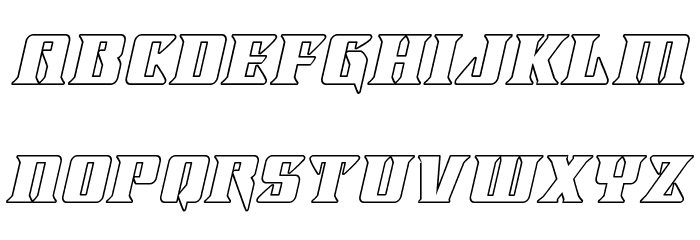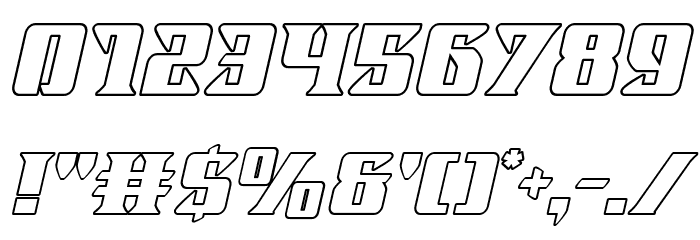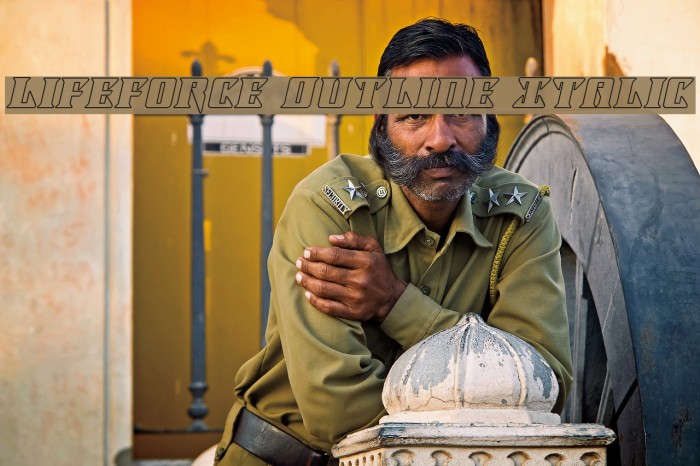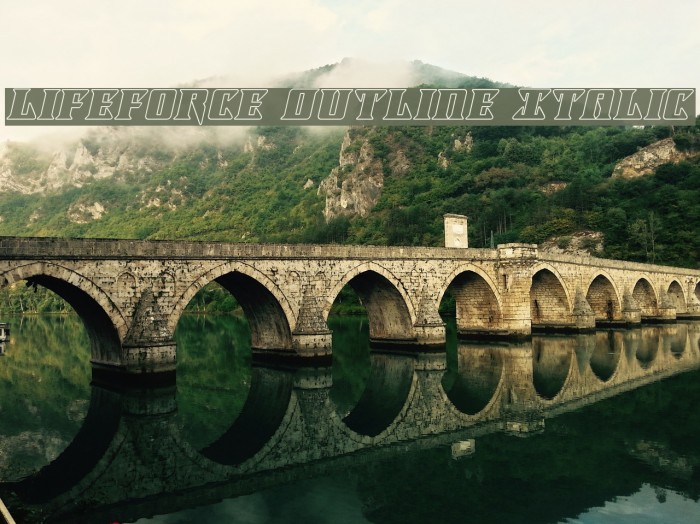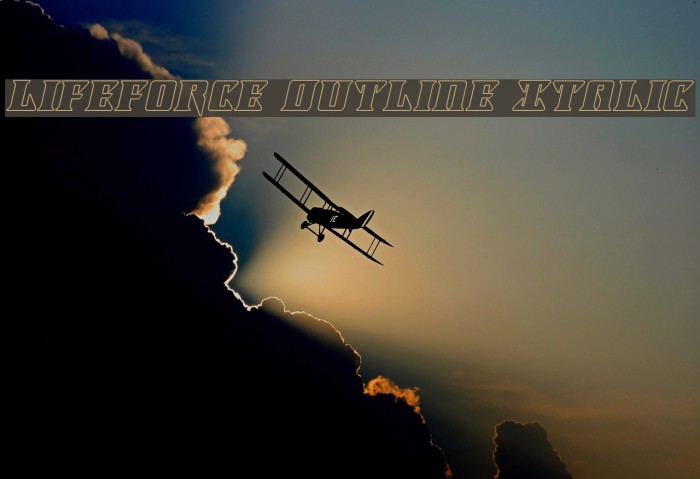
Lifeforce Outline Italic Font
This font features a bold, italicized outline style that gives it a dynamic and futuristic appearance. The characters are angular and geometric, with sharp edges and a consistent slant that adds a sense of motion and energy. The outline design creates a hollow effect, making it ideal for overlaying on various backgrounds. The uppercase and lowercase letters maintain a uniform style, while the numbers and special characters complement the overall aesthetic. This font is visually striking and commands attention, making it suitable for impactful design projects.
A bold, italicized outline font with a futuristic and dynamic style.
- Proposed Projects: Ideal for sci-fi themed designs, video game titles, posters, and branding that requires a modern and edgy look.
- Overall Style: Futuristic, Dynamic